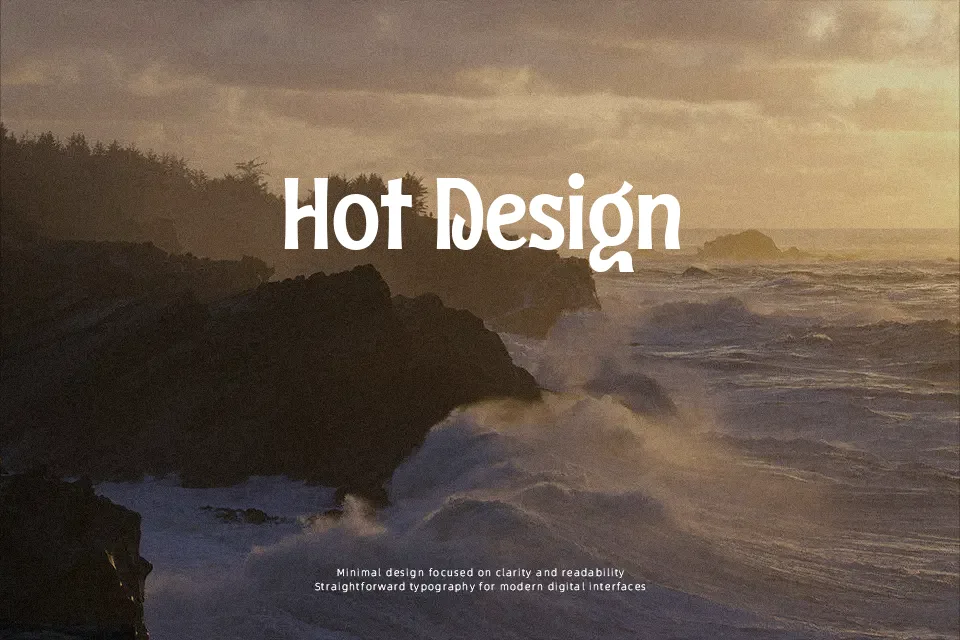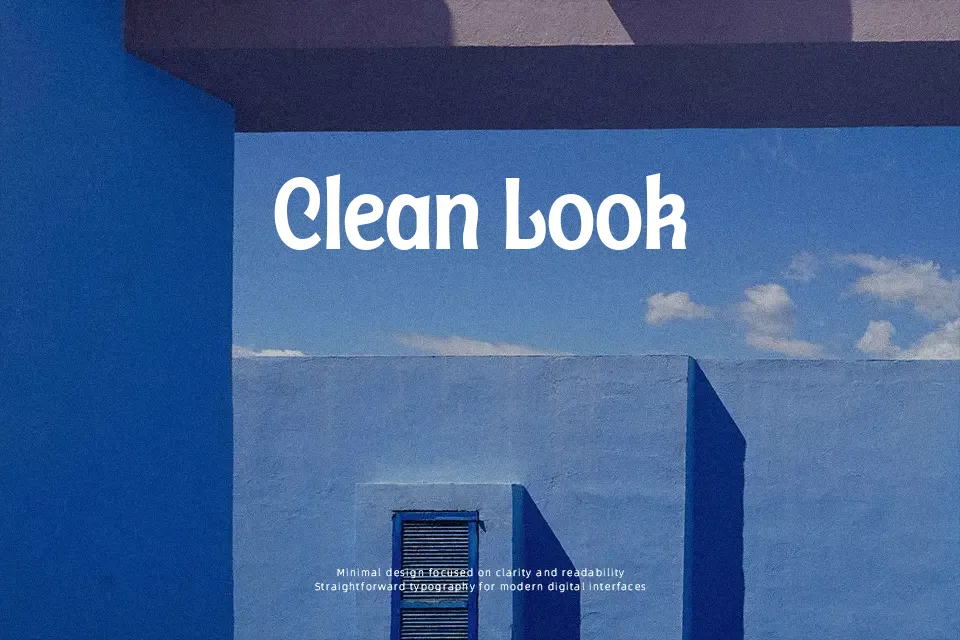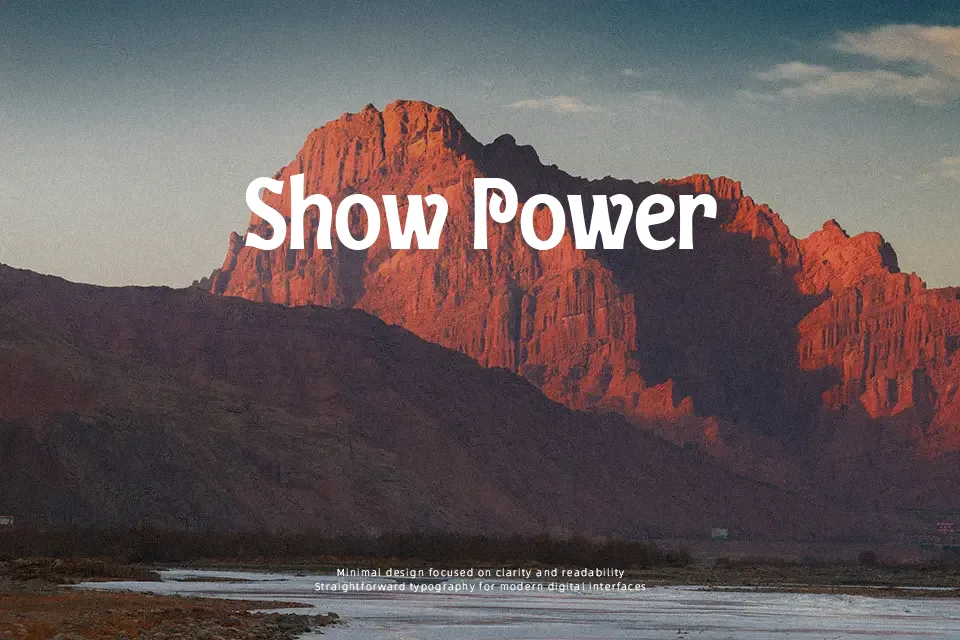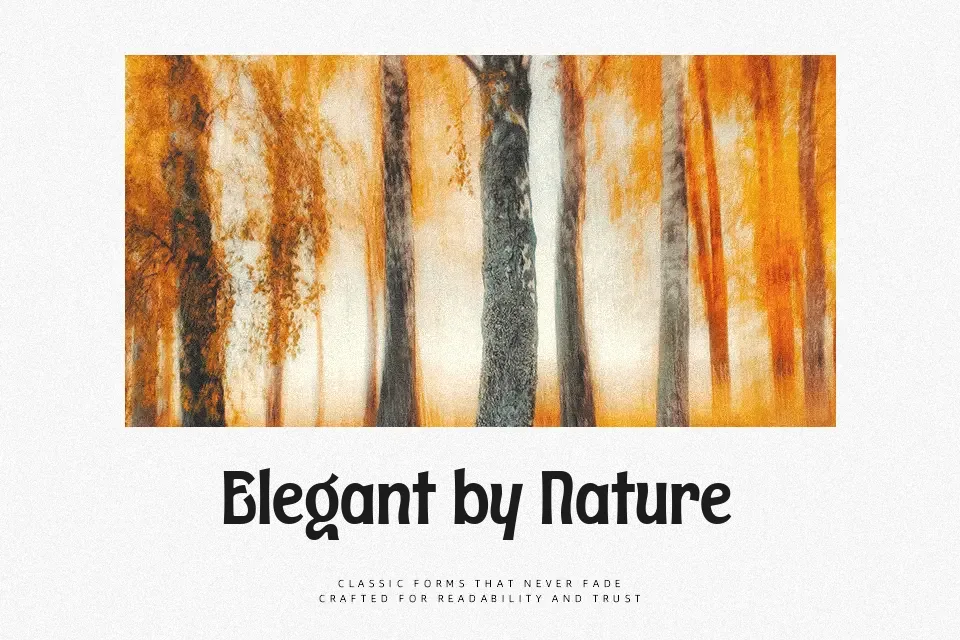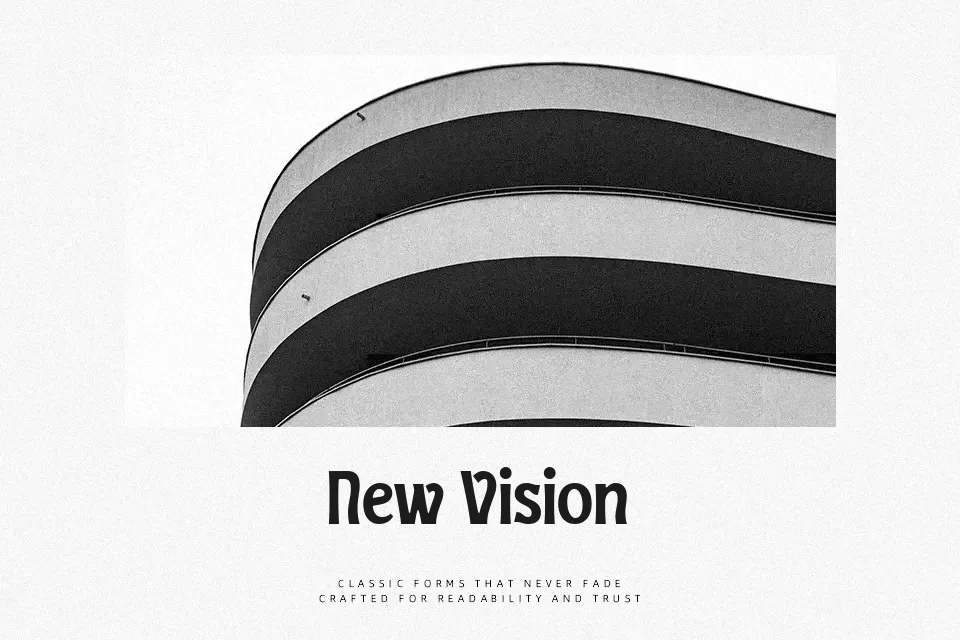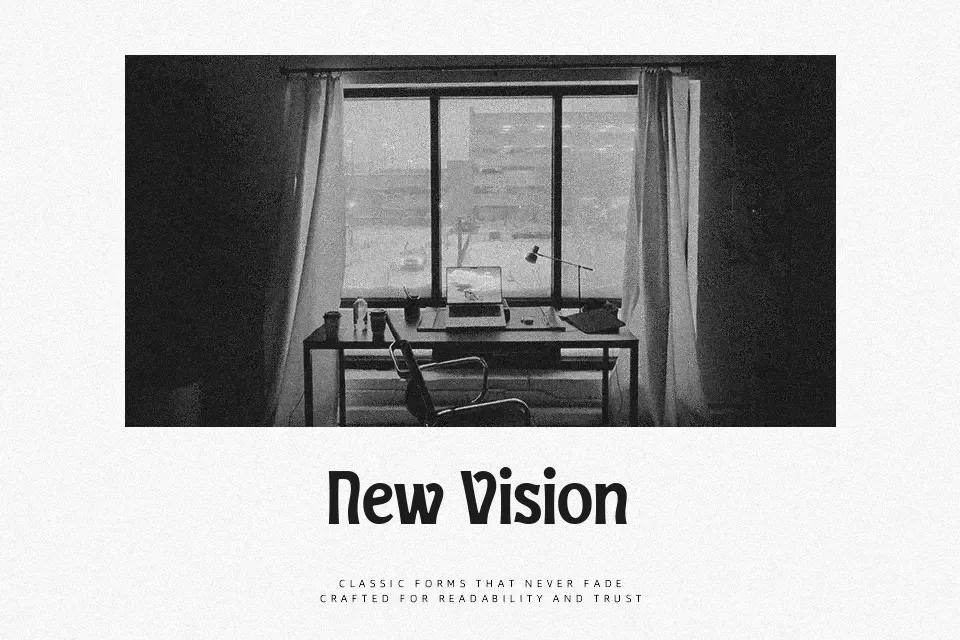
Trivenia Font
Trivenia Font presents an expressive display structure defined by organic curves, swelling stems, and exaggerated flared terminals. The design features moderate stroke contrast with soft, rhythmic transitions between thick and thin elements. Character widths remain relatively uniform, while tight kerning lends compact visual cohesion across words. Proportions emphasize generous bowls and curved ascenders, making the letterforms immediately recognizable. In practice, the typeface provides strong visual impact for album artwork, festival banners, and boutique product labels. However, the ornate contours and heavy weight reduce legibility when scaled down, making the font unsuitable for dense body text or tiny interface captions.
Best For: vintage product packaging, music festival posters, retro apparel graphics, album covers
Not Ideal For: long paragraph text, small interface labels, dense editorial layouts, technical documentation